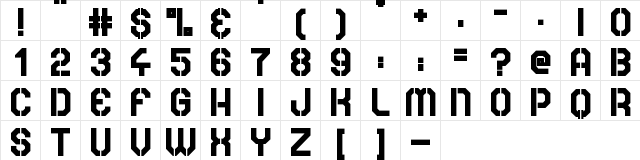
Rear Defender Regular
Design Context for Rear Defender Typeface
Rear Defender is a composed and adaptable typeface that performs quietly and consistently across a wide range of design contexts.